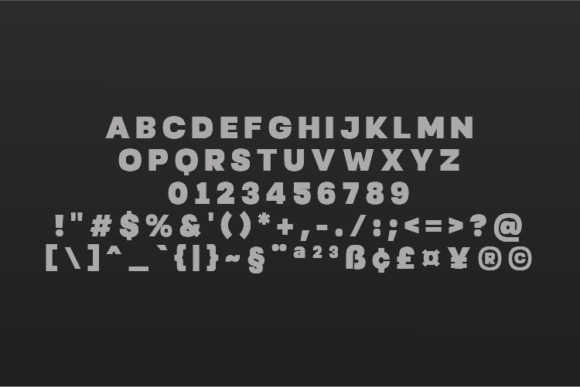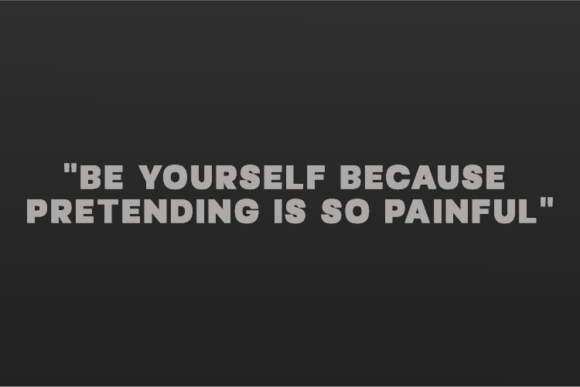
Introduction to Klovemouse Font Font
Fonts play a crucial role in design, and the Klovemouse Font font is a typeface that brings both character and versatility to any project. Whether you’re working on a branding project, a website, or a print design, the Klovemouse Font font offers a unique style that can elevate your work.
Klovemouse – this all caps sans serif is so versatile and looks great in just about any context.
With smooth and clean lines, and just a touch of contrast, Versailles works beautifully for logos, branding, and web headings .
Key Features of Klovemouse Font Font
Why Choose Klovemouse Font Font?
The Klovemouse Font font is more than just a typeface – it’s a design tool that helps you communicate your message with style and clarity. Its unique character set and versatile design make it suitable for a wide range of applications, from elegant invitations to bold headlines.
With its carefully crafted letterforms and balanced proportions, the Klovemouse Font font ensures readability and visual appeal across all mediums.
What makes Klovemouse Font font special?
The Klovemouse Font font stands out with its unique design, exceptional readability, and versatility across various design applications.